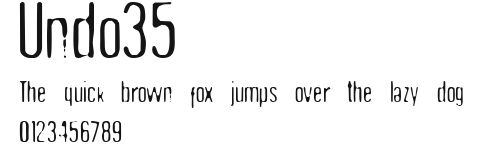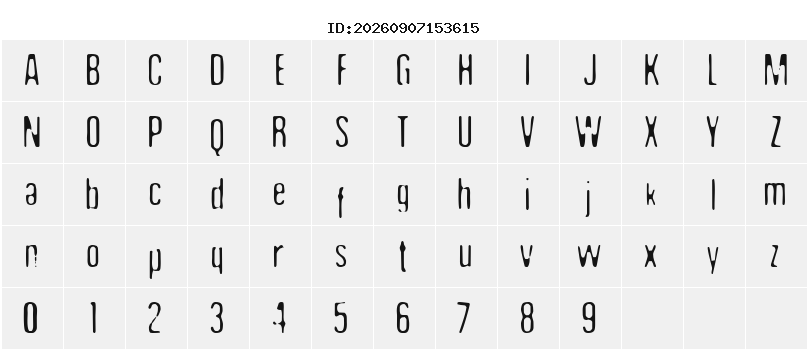
Undo35 Preview
• Font Name: Undo35
• Full Font Name: Undo35
• PostScript Name: Undo35
About Undo35.ttf
Undo35.ttf is a modern, elegant sans-serif font designed for ultimate readability and visual harmony. Perfect for branding, headlines, web design, and print materials.